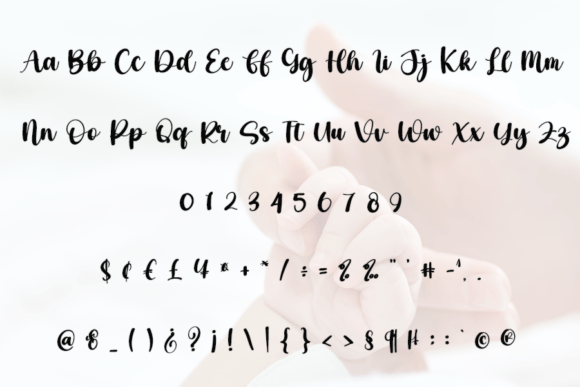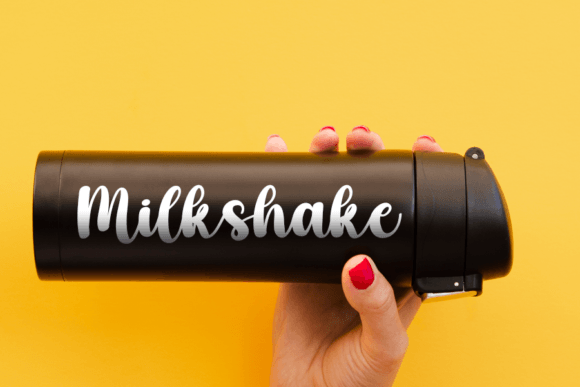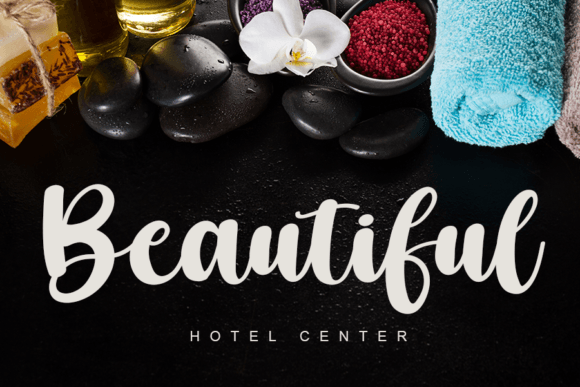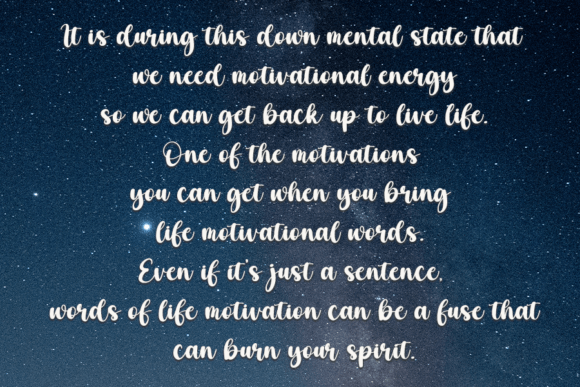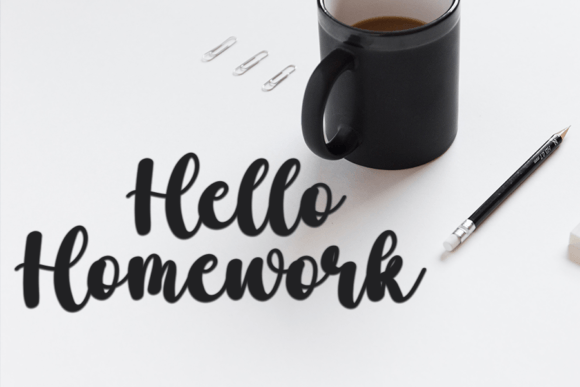
Discover the Charm of Charla Font: A Simple yet Versatile Handwritten Font
Are you looking for a font that can add a personal touch to your designs? Look no further than Charla Font! This beautiful, simple handwritten font is perfect for a wide range of applications, from greeting cards to headlines, and is sure to bring a natural and effortless feel to your next project.
What is Charla Font?
Charla Font is a carefully crafted handwritten font that exudes simplicity and elegance. Its clean lines and smooth curves make it easy to read and versatile enough to be used in various contexts. Whether you’re designing a greeting card, a poster, or a digital graphic, Charla Font is the perfect choice.
Key Features of Charla Font
- Simple and Handwritten: Charla Font boasts a simple, handwritten style that adds a personal touch to any design.
- Versatile: With its clean and elegant look, Charla Font can be used in a wide range of applications, from print to digital media.
- Easy to Read: The font’s clear and smooth curves make it easy to read, even at small sizes.
- Natural Feel: Charla Font is guaranteed to add a natural and effortless feel to your designs.
Uses of Charla Font
Charla Font’s versatility makes it suitable for various design projects. Here are some ideas to get you started:
- Greeting Cards: Add a personal touch to your greeting cards with Charla Font’s simple and heartfelt style.
- Headlines: Use Charla Font to create eye-catching headlines for your blog posts, articles, or social media graphics.
- Posters: Charla Font is perfect for creating posters for events, promotions, or announcements.
- Digital Graphics: Use Charla Font to add a personal touch to your digital graphics, such as social media posts, email newsletters, or website headers.
- Crafting Projects: Charla Font is also perfect for crafters who want to add a personal touch to their projects, such as scrapbooking, journaling, or card making.
Tips for Using Charla Font
Here are some tips to help you get the most out of Charla Font:
- Experiment with Sizes: Charla Font looks great in various sizes, from small to large. Experiment with different sizes to find the perfect fit for your design.
- Pair with Other Fonts: Charla Font pairs well with other fonts, such as sans-serif or serif fonts. Experiment with different font combinations to create a unique look.
- Use in Combination with Images: Charla Font looks great when used in combination with images. Use it to add a personal touch to your graphics or photos.
Charla Font is a beautiful, simple handwritten font that is perfect for designers and crafters looking to add a personal touch to their projects. Its versatility, ease of use, and natural feel make it a great choice for a wide range of applications. Whether you’re designing a greeting card, a poster, or a digital graphic, Charla Font is sure to bring a simple and effortless charm to your designs.